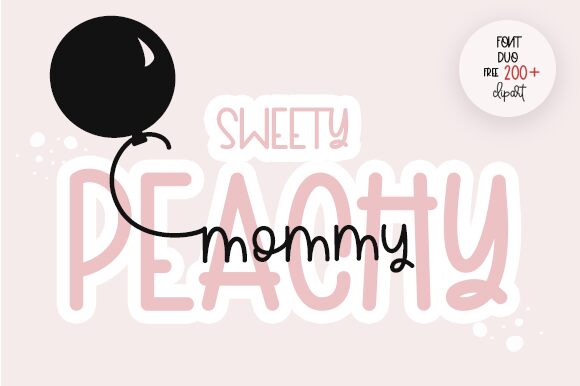
Introducing Mommy Monoline, a light and elegant monoline script font designed by Nopianti. Perfect for crafting luxurious logos, creating beautiful wedding invitations, or adding a touch of sophistication to any design project.
Mommy Monoline
Nopianti